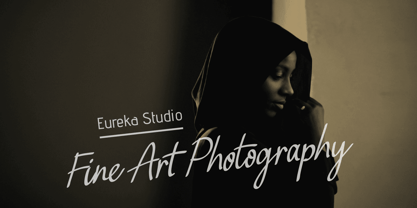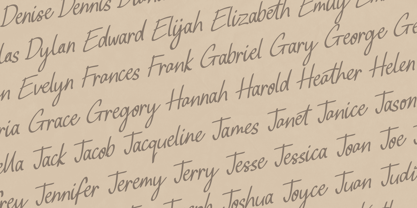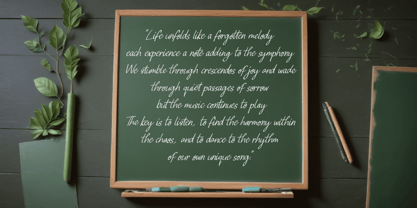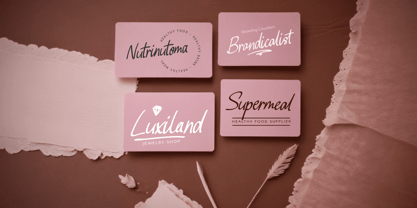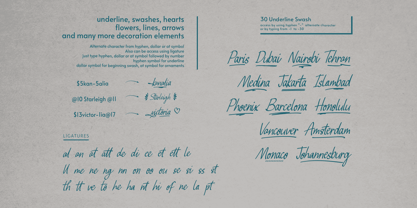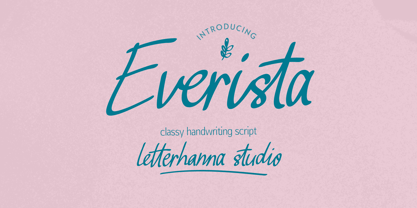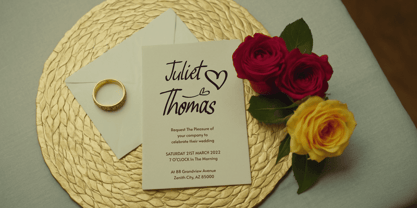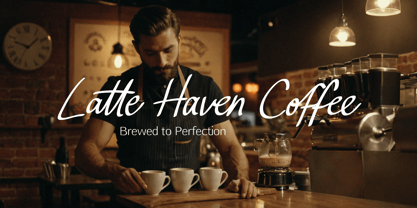
Everista
by Letterhanna Studio
The Everista Font Family was designed by Rinaldo Hasibuan and published by Letterhanna Studio. Everista contains 1 styles. More about this family
Introducing Everista, a refined script font that radiates timeless elegance and sophistication. With its graceful curves and flowing strokes, this font captures the essence of classic beauty, making it perfect for luxury branding, wedding invitations, and high-end packaging. Each letter is meticulously crafted to create a seamless and polished look, adding a touch of sophistication to any project.
Designed for those who appreciate fine details, Everista blends modern charm with classic script artistry. Whether used for logos, stationery, or editorial designs, its effortless grace and stylish presence make every word feel exquisite. Elevate your typography with a font that embodies class, refinement, and timeless appeal.